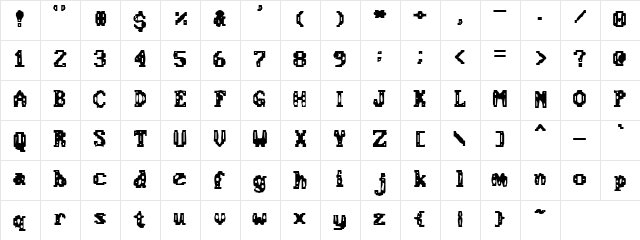
Vixxy Nilav Regular
Design Context for Vixxy Nilav Typeface
Vixxy Nilav is a composed and adaptable typeface that performs quietly and consistently across a wide range of design contexts.